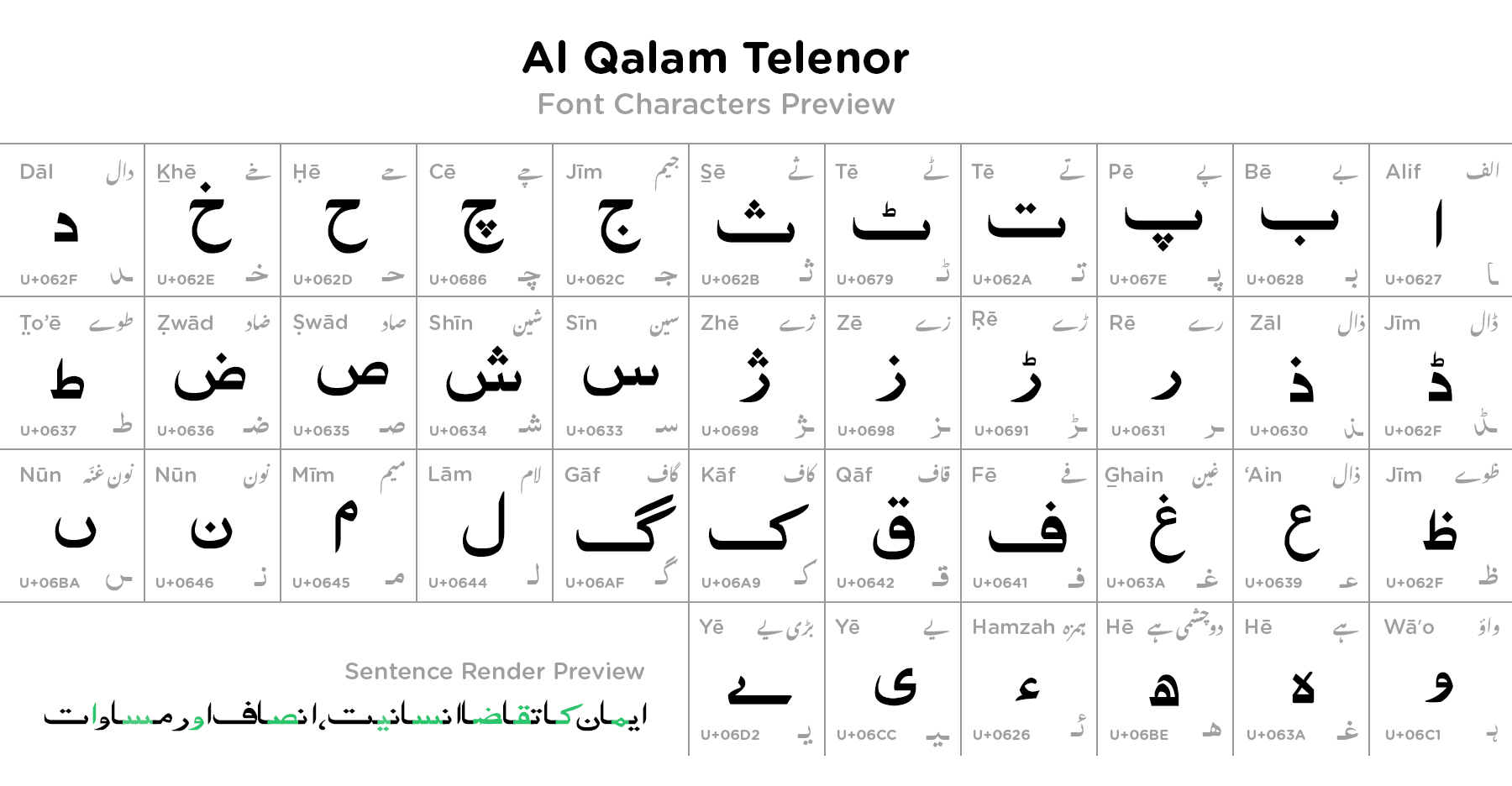
Al Qalam Telenor, developed by Attari Qadri and Ishtiaq Ali, presents a modern Urdu font designed for extended text applications. Launched in 2017, this font follows the latest Unicode standards, ensuring seamless compatibility across various languages and platforms. With a collection of 444 characters and symbols and a glyph count of 502, it supports Urdu, Arabic, Latin, Persian, and more, catering to diverse linguistic needs.
Inspired by the Naskh script, Al Qalam Telenor offers a modern, wide, and regular style, balancing formality and readability. Its thick, constant thickness and impactful strokes enhance on-screen legibility, making it ideal for extended reading sessions. The font’s minimalist design, devoid of excessive decoration, offers a clean and uncluttered aesthetic suitable for branding, advertising, posters, and UI design. It is a versatile choice for projects requiring longer text passages, thanks to its balanced proportions, clear letterforms, and compatibility with various languages. Whether used in digital interfaces or printed materials, this font delivers a perfect blend of functionality and visual appeal, meeting the demands of modern typography with delicacy.